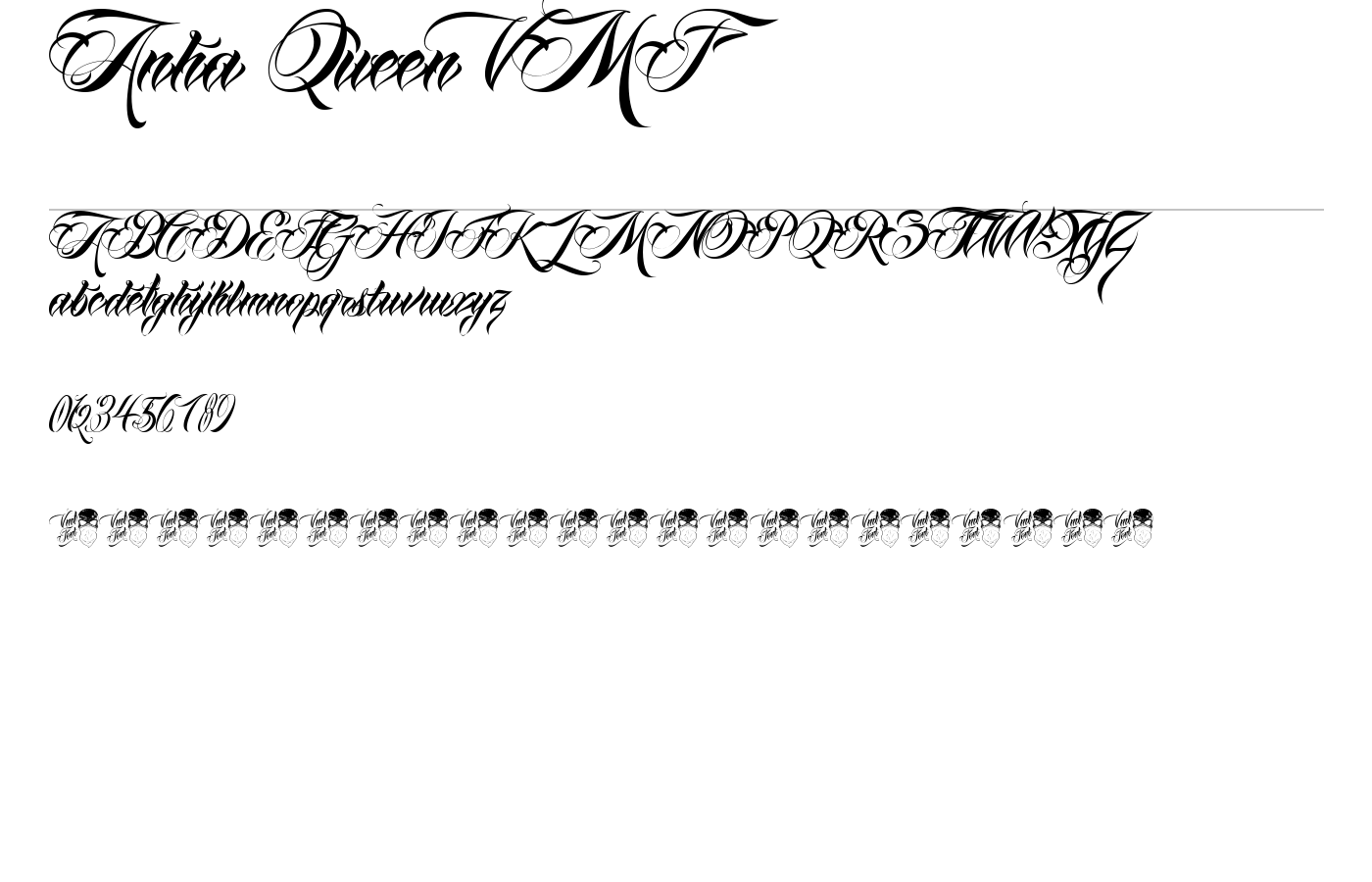
Anha Queen VMF is an elegant script font characterized by its flowing, elaborate calligraphic strokes and high contrast between thick and thin lines. Its decorative and intricate letterforms create a sophisticated, luxurious feel, making it ideal for formal invitations, branding, and display uses where a dramatic and artistic touch is desired. This font shines in contexts that need a classic, regal vibe with a strong visual impact.
Anha Queen VMF Font
About Anha Queen VMF Font
| Font family | Anha Queen VMF Font |
| Designer | Vicky Mardian (VMF FONT ) Bandung |